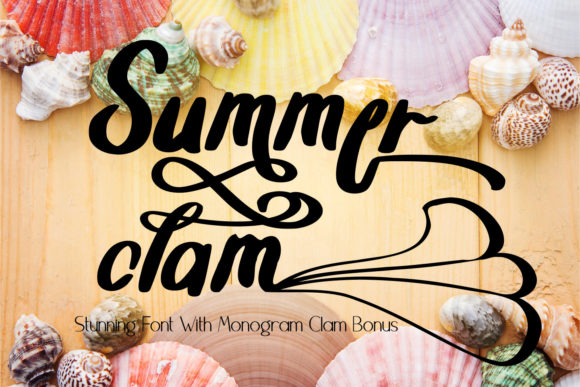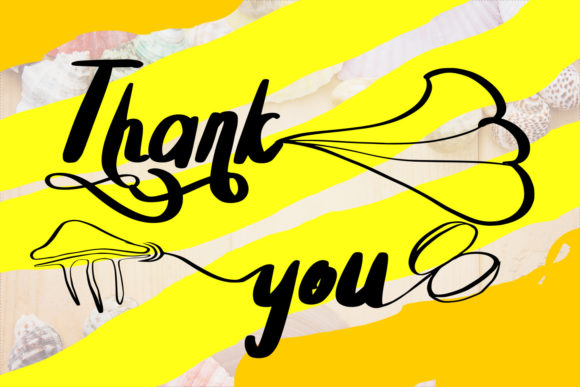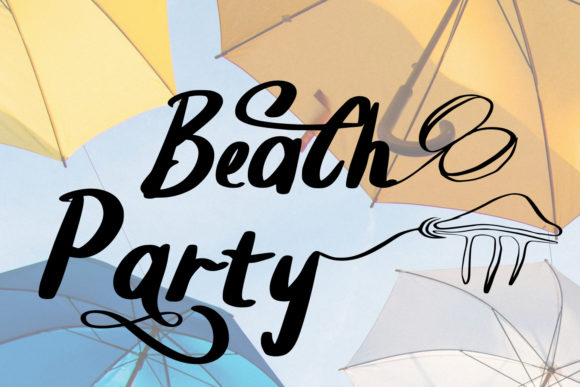
About Summer Clam Font
Summer Clam is an amazing handwritten font. It maintains its classy calligraphic influences while feeling contemporary and fresh. This versatility will appeal to a wide range of crafty ideas, from letterheads and titles, to stationery. This font is PUA encoded which means you can access all of the cute glyphs and swashes with ease! It also features a wealth of special features including alternate glyphs and ligatures.